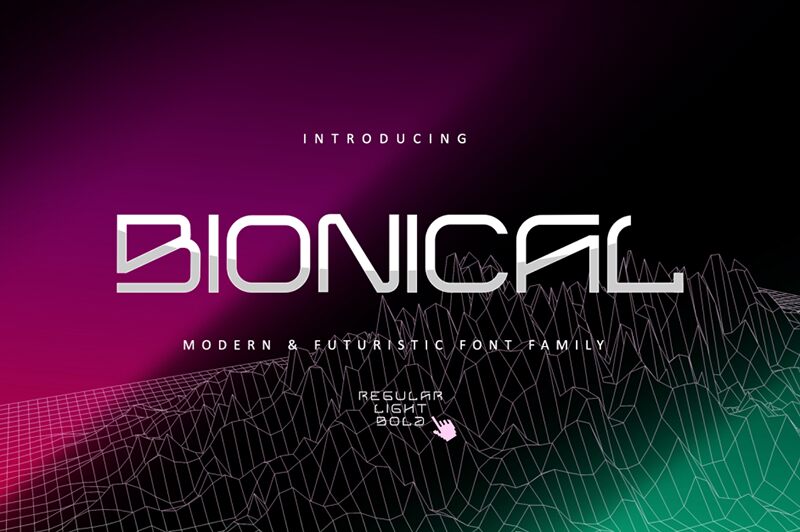
Bionical font by Nugs Studio is a futuristic display font that presents an innovative and technological sensation. The expanded sans-serif types combine sleek lines with geometric and minimalist shapes to produce truly remarkable typographic outcomes.
Use it for free in advertising, branding, packaging, science-fiction movies, book covers, website headers, posters, banners, tech company logos, or any project that needs a techy touch.